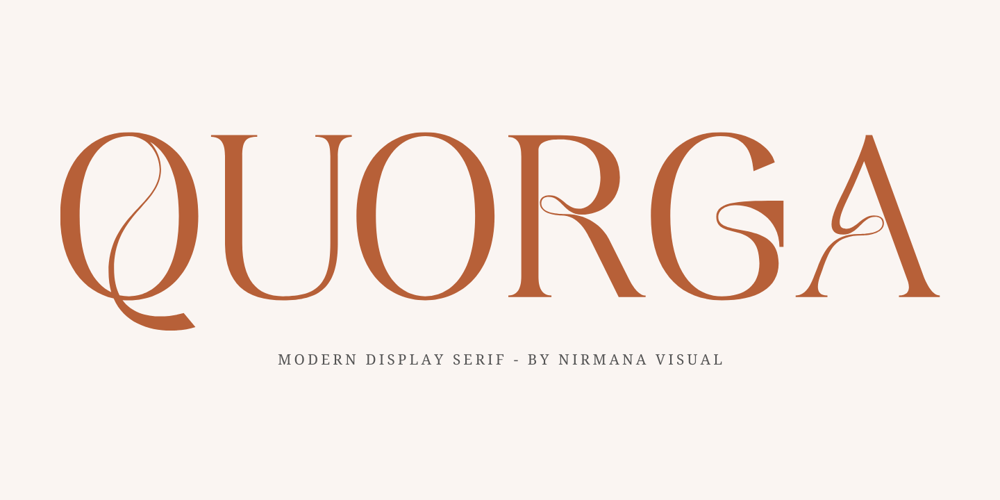
Quorga Font Family was designed by Sigit Dwipa and published by Nirmana Visual. Quorga contains 1 styles and family package options. Quorga is a modern Aesthetic Serif font that is both memorable and stylish. It’s a mix between a classic serif and a futuristic sans serif.This font is perfect for fashion related branding or editorial design and displays both masculine and feminine qualities.